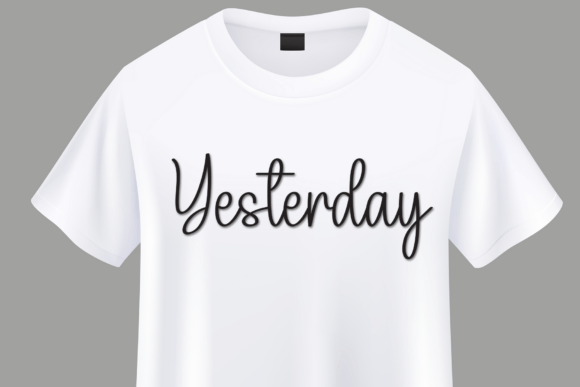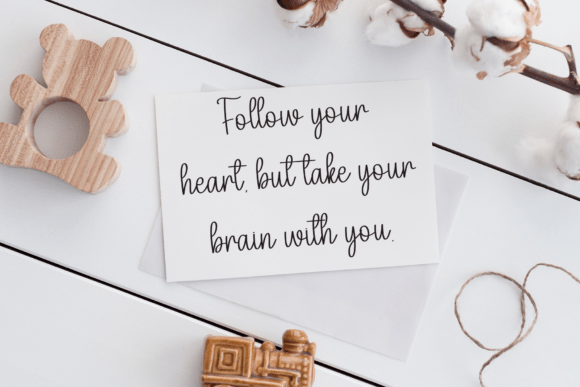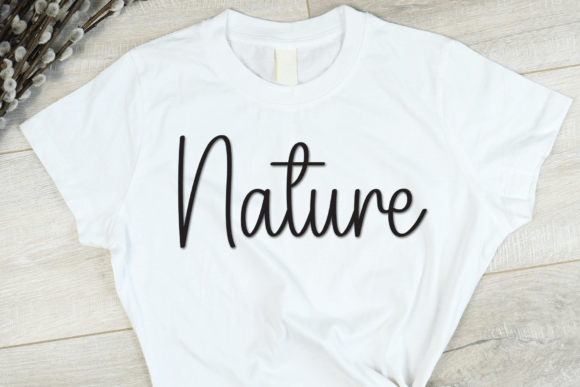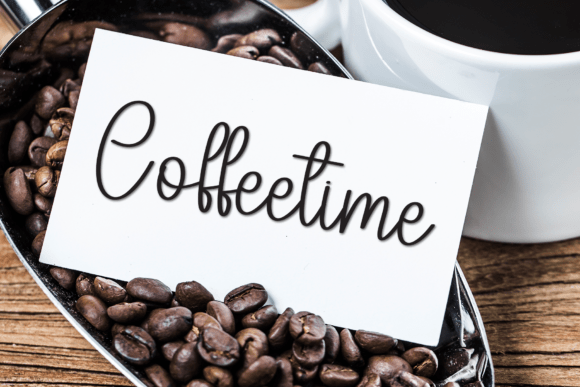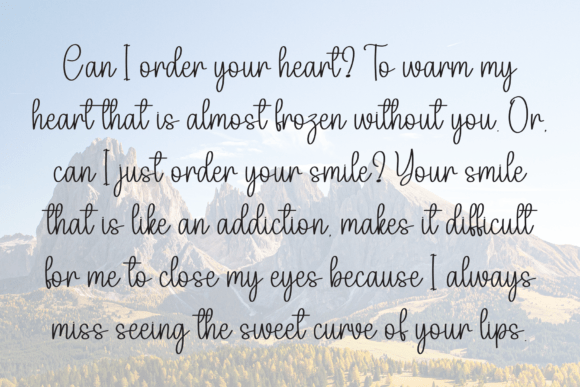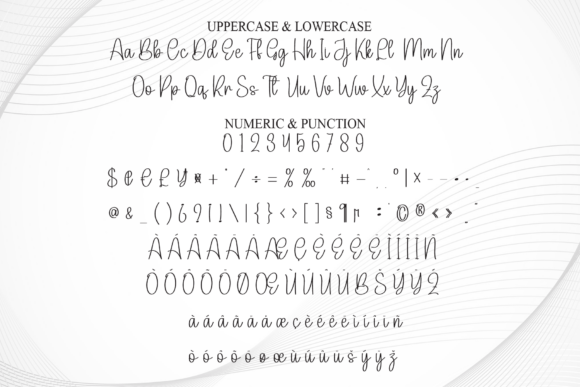
Introducing Challenge Font: The Perfect Casual Handwritten Font for Your Designs
Are you tired of using traditional fonts that lack personality and warmth? Look no further than Challenge Font, a casual handwritten font that brings a friendly and approachable feel to any design. With its smooth strokes and relaxed letterforms, Challenge Font creates a natural, authentic look that’s perfect for notes, educational materials, and creative projects.
The Characteristics of Challenge Font
Challenge Font is a carefully crafted typeface that boasts a range of characteristics that make it perfect for designers and crafters. Some of its key features include:
- Smooth Strokes: Challenge Font features smooth, flowing strokes that give it a natural and effortless look.
- Relaxed Letterforms: The font’s letterforms are designed to be relaxed and casual, creating a sense of warmth and approachability.
- Handwritten Feel: Challenge Font has a distinctly handwritten feel that’s perfect for adding a personal touch to your designs.
- Clear and Legible: Despite its casual nature, Challenge Font is clear and legible, making it perfect for use in educational materials and notes.
Uses for Challenge Font
Challenge Font is a versatile typeface that can be used in a wide range of design projects. Some of the most popular uses for this font include:
- Notes and Journals: Challenge Font is perfect for use in notes and journals, adding a personal touch to your writing.
- Educational Materials: The font’s clear and legible nature makes it ideal for use in educational materials, such as textbooks, workbooks, and worksheets.
- Creative Projects: Challenge Font is a great choice for creative projects, such as scrapbooking, card making, and other paper crafts.
- Digital Designs: The font can also be used in digital designs, such as blog posts, social media graphics, and presentations.
Benefits of Using Challenge Font
There are many benefits to using Challenge Font in your designs. Some of the most significant advantages include:
- Warmth and Personality: Challenge Font adds a warm and personal touch to your designs, making them more engaging and relatable.
- Clarity and Legibility: The font’s clear and legible nature ensures that your message is communicated effectively.
- Versatility: Challenge Font can be used in a wide range of design projects, from notes and educational materials to creative projects and digital designs.
Tips for Using Challenge Font
To get the most out of Challenge Font, here are a few tips to keep in mind:
- Use it in Combination with Other Fonts: Challenge Font can be used in combination with other fonts to create visual interest and add depth to your designs.
- Experiment with Different Sizes: The font looks great in a range of sizes, from small and delicate to large and bold.
- Add Texture and Patterns: Consider adding texture and patterns to your designs to give them a more organic and handmade feel.
- Keep it Simple: Don’t be afraid to keep your designs simple and clean, allowing the font to take center stage.
In conclusion, Challenge Font is a versatile and engaging typeface that’s perfect for designers and crafters. With its smooth strokes, relaxed letterforms, and handwritten feel, it’s ideal for adding a personal touch to your designs. Whether you’re creating notes, educational materials, or creative projects, Challenge Font is a great choice. So why not give it a try and see the difference it can make in your designs?